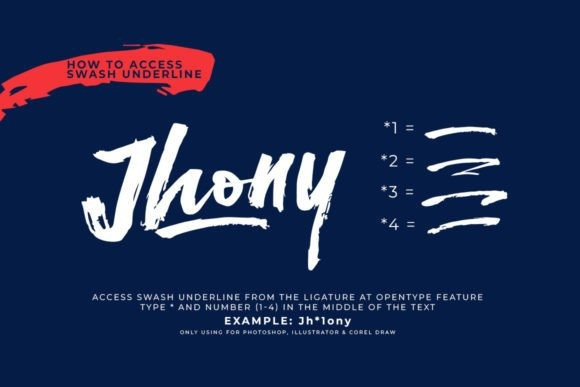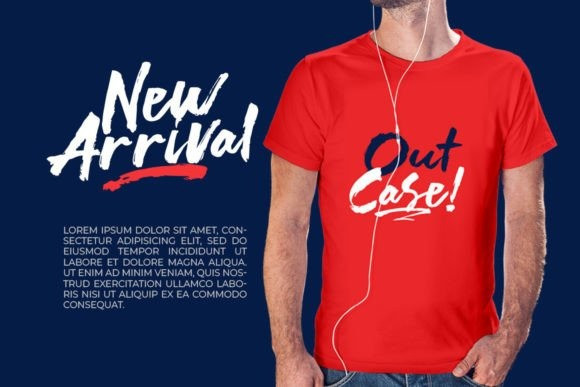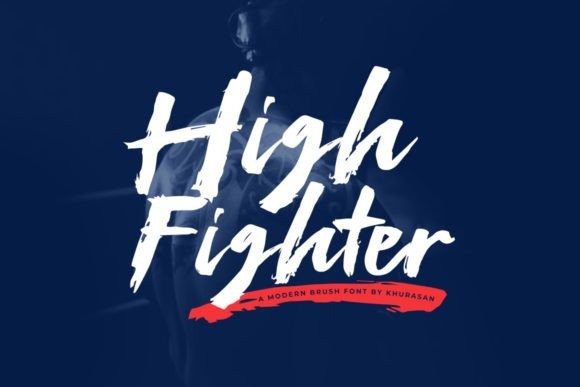
High Fighter Font
High Fighter Font is a modern brush font perfect for posters, logos, magazines, book covers, banners, and many more! Get this quirky display font, and use it to create lovely designs!